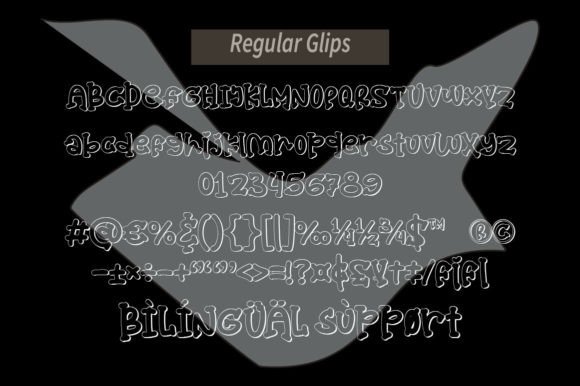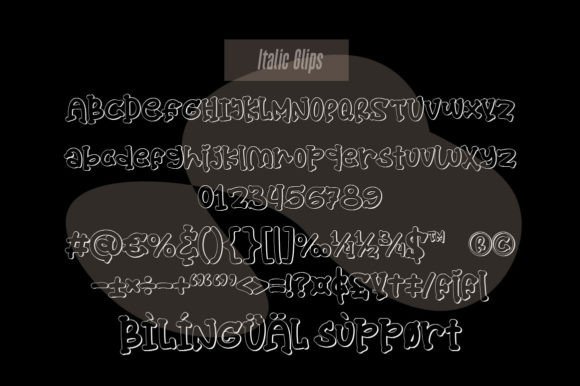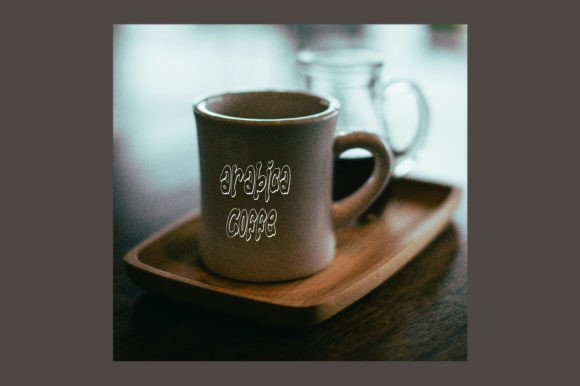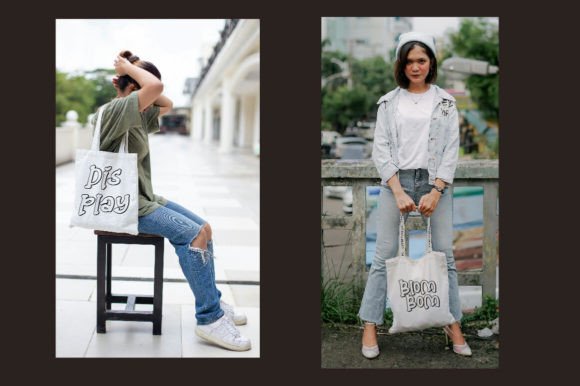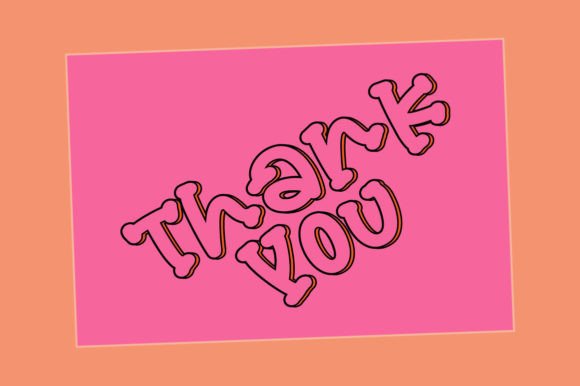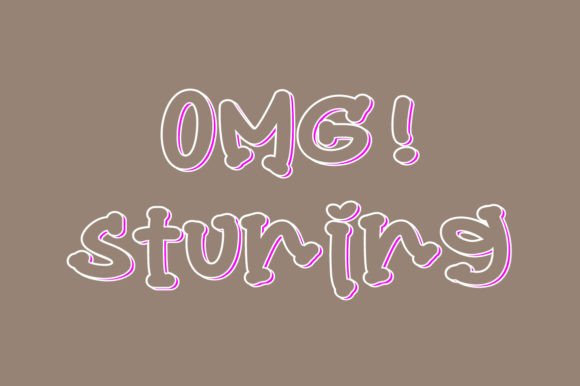
Introduction to Hosting Font
Introducing Hosting font.
It’s a 3D display font boasting a handwritten style with unique characters This font comes in both regular and italic styles, offering you a wealth of design possibilities.
Key Features of Hosting Font